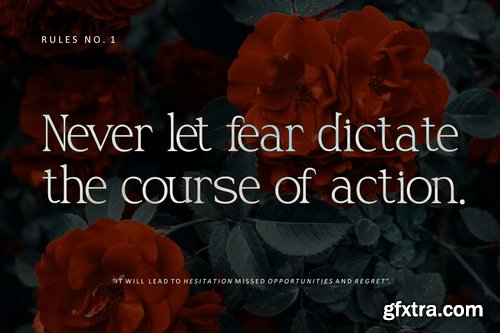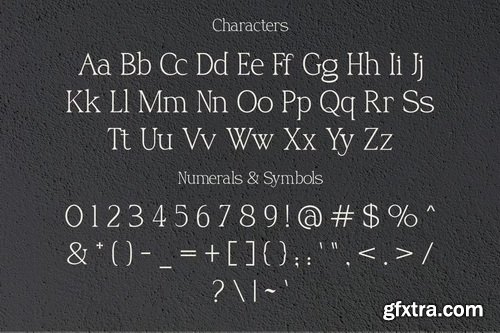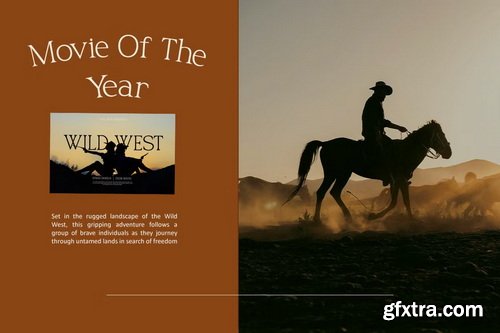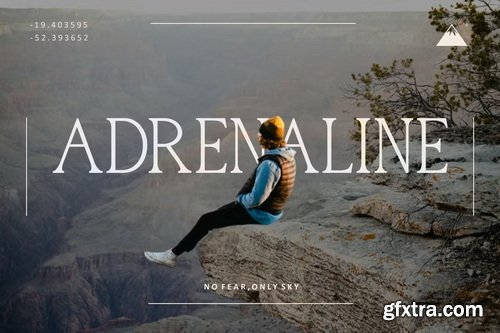
CreativeMarket - Rohelise Modern Serif Font
- Rohelisé is a modern serif font that exudes timeless elegance and high-end sophistication. Featuring refined curves and stylish ligatures, it is ideal for branding, editorial layouts, social media graphics, fashion campaigns, and more. Its versatile letterforms work beautifully in both large headlines and refined body text. Whether used for luxury branding or creative visual storytelling, Rohelisé brings a unique charm and polished aesthetic to any design project